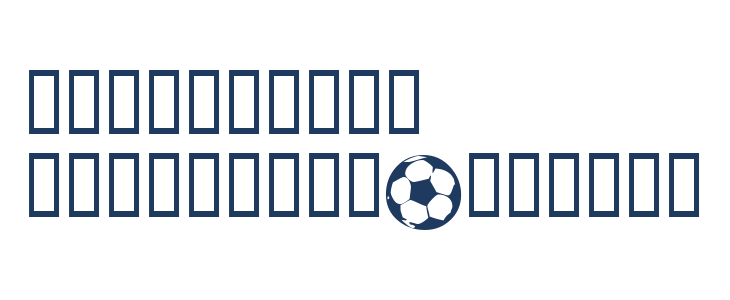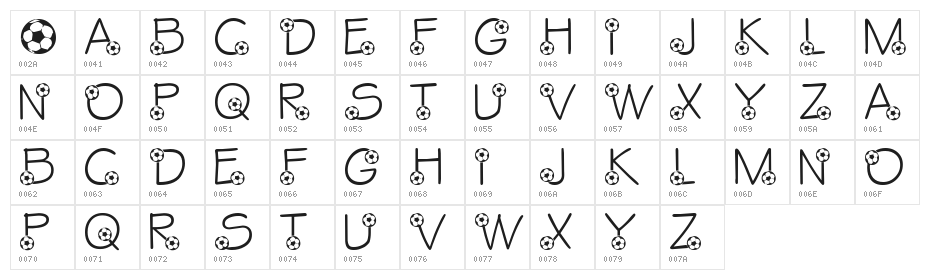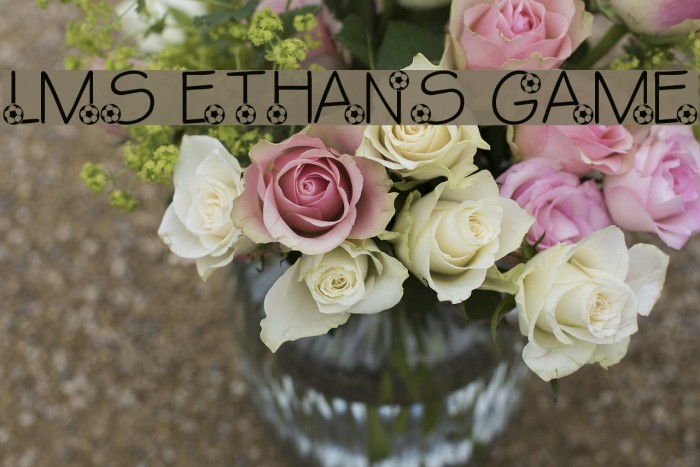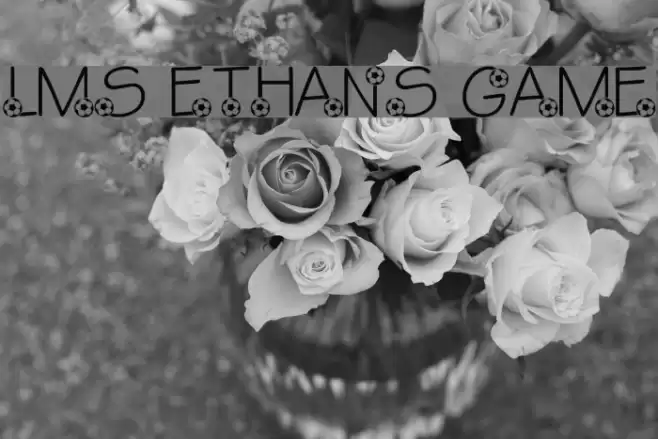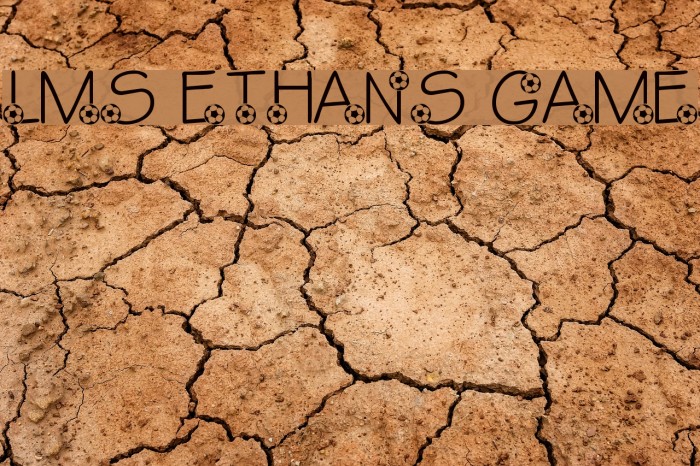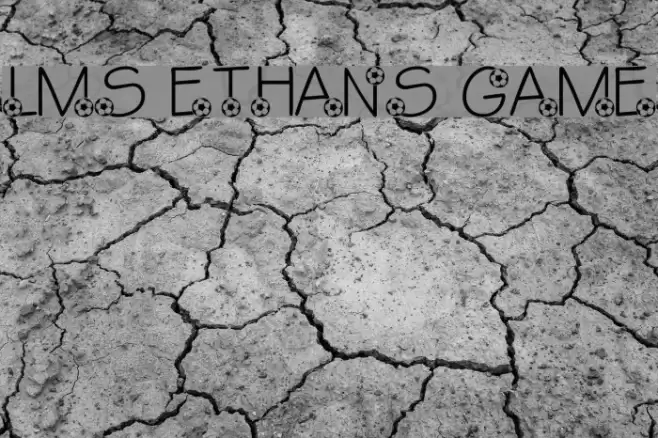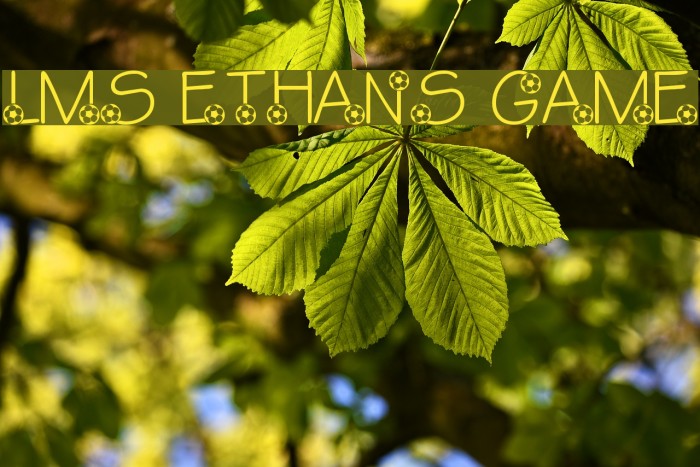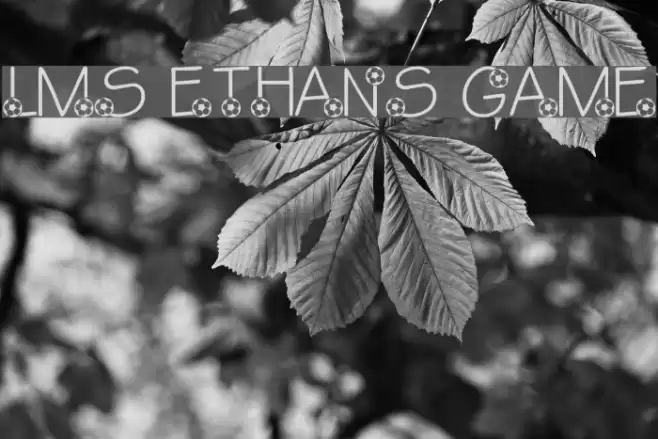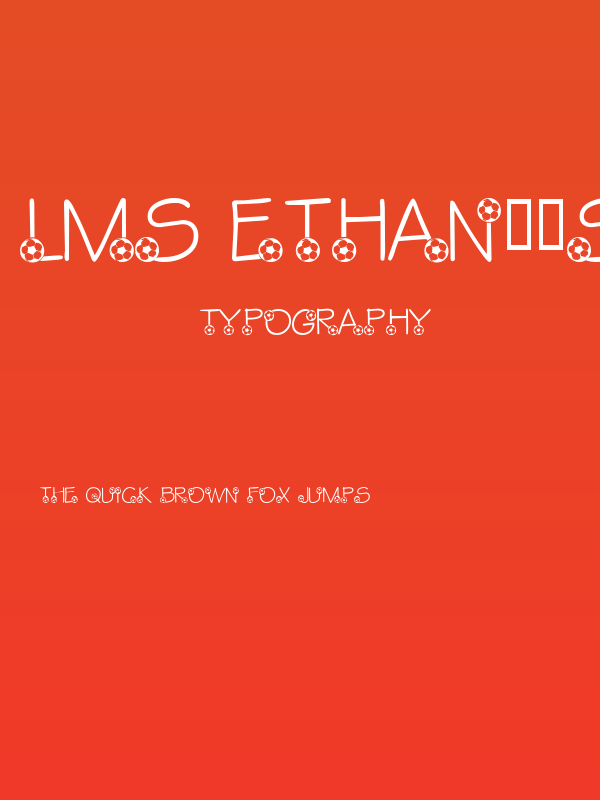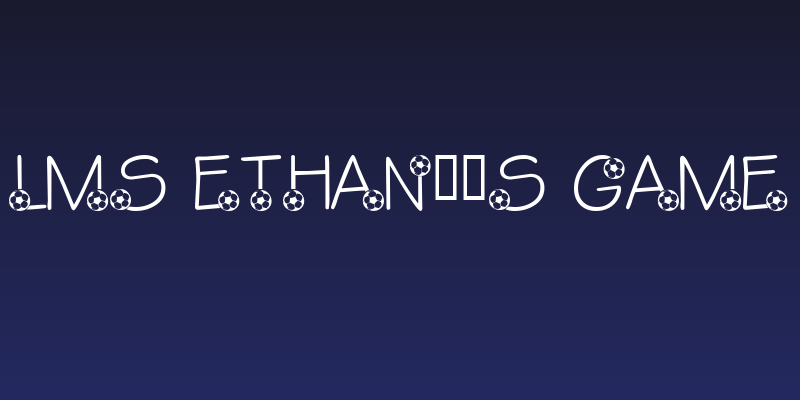
LMS Ethan's Game Font
LMS Ethan's Game Description
This playful and energetic font features uppercase and lowercase letters adorned with soccer ball motifs. Each character is uniquely designed with a sporty theme, incorporating elements that resemble soccer balls at various points of the letters. The overall style is whimsical and fun, making it ideal for projects that aim to capture the excitement and dynamism of sports, particularly soccer. The font maintains a consistent and clear structure, ensuring readability while adding a decorative flair. Its unique design makes it stand out, perfect for engaging audiences in sports-related content.
| Proposed Projects | Perfect for sports event posters, children's sports programs, soccer team logos, and playful merchandise designs. |